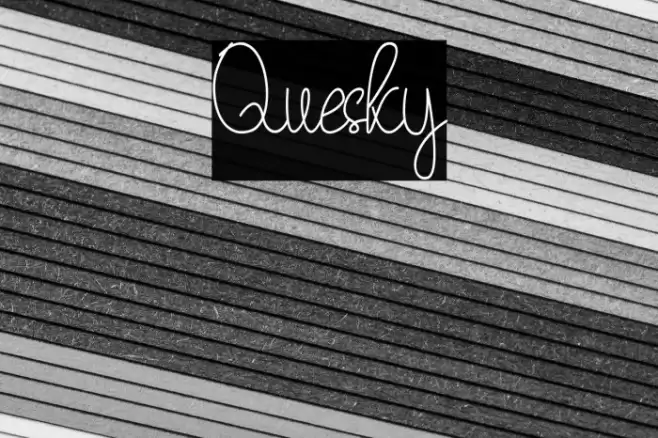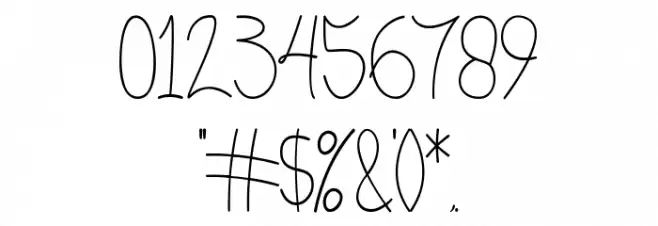
Quesky Font
Quesky Description
This font features a playful and whimsical handwritten style, characterized by its flowing, cursive-like letters that maintain a casual and approachable appearance. The uppercase letters are tall and slightly narrow, with a consistent stroke width that gives them a clean and modern look. The lowercase letters are more fluid, with loops and curves that add a touch of elegance and charm. The numbers and special characters follow the same playful aesthetic, making them suitable for creative and informal designs. The overall style is both fun and sophisticated, making it versatile for various design projects.
A playful, handwritten font with a whimsical and modern style from Script fonts.
- Proposed Projects: Ideal for greeting cards, invitations, children's books, and playful branding.
- Overall Style: Modern, Decorative
- Use Case: Headlines, Logos, Invitations